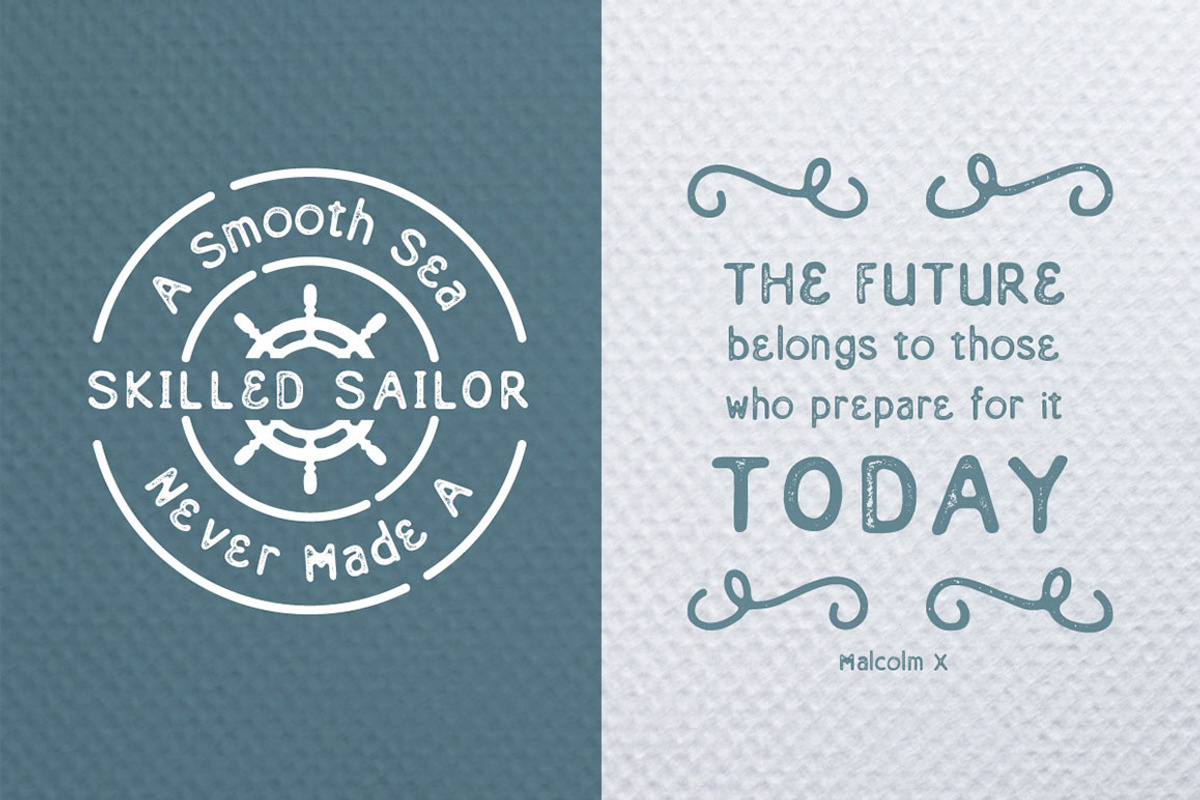
Eastern Typeface
Eastern Typeface by Me55enjah Design is a font selected for branding, posters, packaging, typography.
- Rounded edges and imperfections were added to the characters to give a vintage vibe.
- For those looking for some peculiar characters, available on blind and rusty texture versions as well.
Why Eastern Typeface is worth a look
Eastern Typeface by Me55enjah Design fits naturally into Branding, posters, packaging, typography.